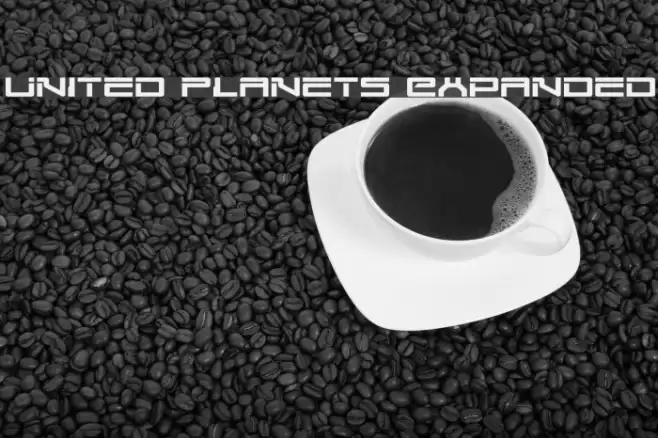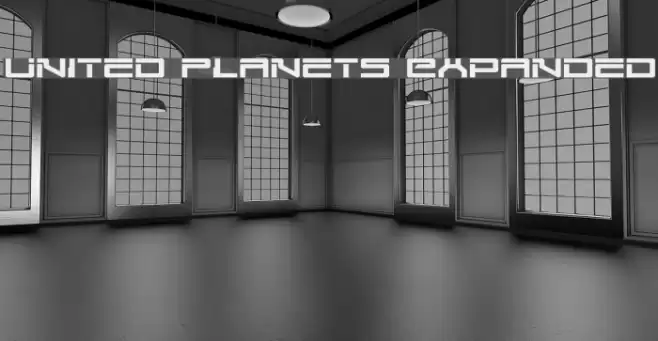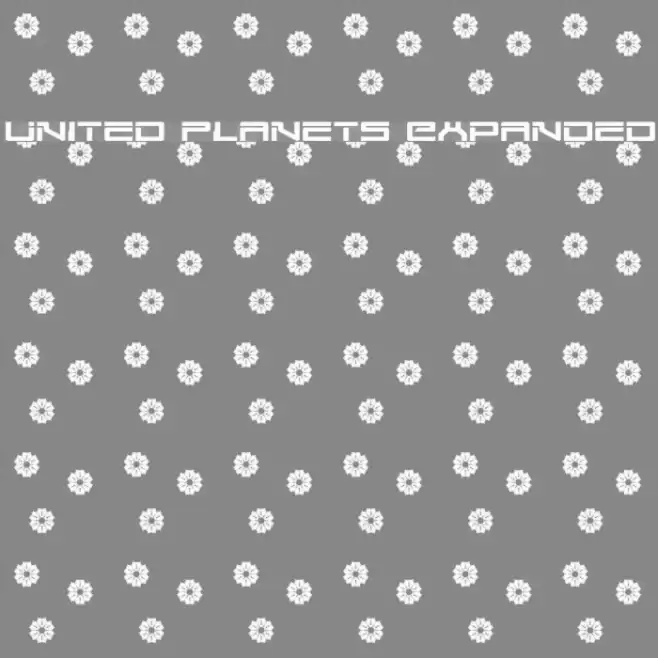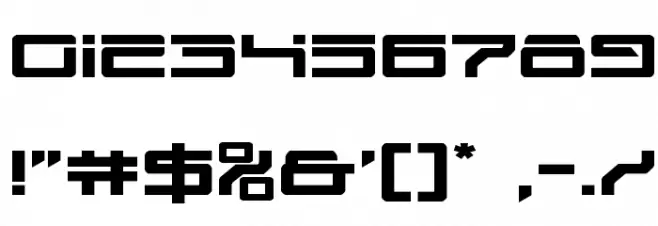
United Planets Expanded Font
United Planets Expanded Description
This font features a futuristic and geometric design, characterized by its bold and angular letterforms. The characters are constructed with sharp edges and straight lines, giving it a distinctly modern and digital appearance. The uppercase and lowercase letters maintain a consistent style, with a uniform height and width that enhances its structured look. The numerals and special characters follow the same design principles, ensuring a cohesive visual identity across all elements. Its expanded width and blocky style make it stand out, ideal for projects that require a strong and impactful typeface.
A bold, futuristic font with geometric and angular letterforms from Uncategorized fonts.
- Proposed Projects: Ideal for sci-fi themed designs, technology branding, video game titles, and futuristic posters.